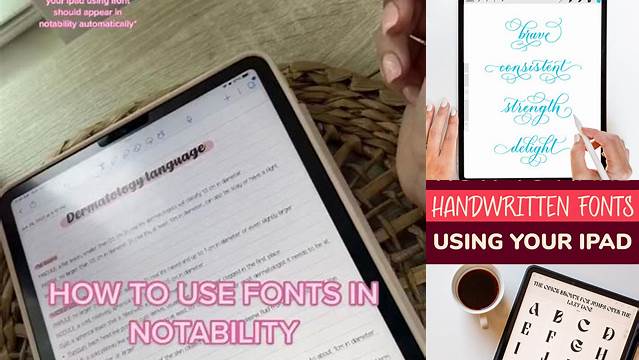
Best Fonts For IPad Notes: Enhance Your Note-Taking
Introduction: Enhancing Your Note-Taking Experience with the Right Fonts
Hey guys! Are you looking to elevate your note-taking game on your iPad? One of the most underrated aspects of digital note-taking is the font. Choosing the right font can significantly impact readability, organization, and overall aesthetic appeal of your notes. In this comprehensive guide, we’ll dive deep into the world of fonts for iPad Notes, exploring everything from built-in options to third-party apps and how they can transform your note-taking experience. Selecting the perfect font isn't just about aesthetics; it's about functionality and clarity. A well-chosen font can reduce eye strain, improve reading speed, and make your notes more engaging. Think of your notes as a reflection of your thought process – the right font can help articulate your ideas more effectively. When you're staring at a screen for extended periods, especially during lectures or study sessions, the readability of your font becomes crucial. Fonts that are too decorative or have inconsistent letter spacing can cause fatigue and hinder comprehension. That's why it's essential to consider fonts designed for readability, with clear and consistent letterforms. The built-in font options in iPad Notes offer a solid starting point, but exploring third-party apps can unlock a world of possibilities. These apps provide access to a vast library of fonts, each with its unique character and style. Whether you're aiming for a professional, minimalist look or a creative, handwritten feel, there's a font out there to match your preferences. Beyond the technical aspects, choosing a font is also a matter of personal expression. Just like handwriting, your font choice can reflect your personality and the tone of your notes. A clean, sans-serif font might be ideal for formal meeting notes, while a more playful, script-style font could be perfect for personal journaling. So, let’s embark on this font-astic journey together! We'll explore the best built-in options, delve into the realm of third-party apps, and provide tips on how to install and manage fonts on your iPad. By the end of this guide, you'll be equipped with the knowledge to choose the perfect fonts that make your iPad Notes both visually appealing and highly effective.
Exploring Built-In Font Options in iPad Notes
Let’s start with the basics, shall we? The native Notes app on your iPad comes equipped with a selection of built-in fonts that are surprisingly versatile. These fonts are designed to be readable and functional, catering to a wide range of note-taking needs. While the default options may seem limited at first glance, understanding their nuances can help you make informed choices for different types of notes. Among the most popular built-in fonts are San Francisco (the system font for Apple devices), Helvetica Neue, and Times New Roman. San Francisco is known for its clean and modern aesthetic, making it an excellent choice for general note-taking and professional documents. Its clarity and legibility at various sizes make it a reliable option for long stretches of reading and writing. Helvetica Neue is another sans-serif font that exudes simplicity and sophistication. Its geometric design and uniform strokes contribute to its readability, making it suitable for both headings and body text. If you're aiming for a polished and contemporary look, Helvetica Neue is a solid pick. For those who prefer a more traditional serif font, Times New Roman is a classic choice. Its elegant serifs and balanced proportions lend a formal touch to your notes, making it ideal for academic or professional settings. While Times New Roman might feel a bit old-school to some, its timeless appeal and readability make it a perennial favorite. In addition to these core fonts, the iPad Notes app also offers other options like Arial, Courier New, and Georgia. Arial is another sans-serif font that's similar to Helvetica but with subtle differences in its letterforms. It's a versatile choice that works well for both digital and print formats. Courier New, a monospaced font, is reminiscent of typewriters and can be useful for coding notes or when you need consistent character widths. Georgia, a serif font designed for screen readability, offers a softer and more approachable alternative to Times New Roman. To change the font in your iPad Notes, simply tap the “Aa” icon in the formatting toolbar. This will bring up a menu where you can select your desired font, size, and style (bold, italic, underline). Experimenting with these options is key to finding the perfect combination that suits your note-taking style. Remember, the best font is one that you find comfortable to read and that enhances your ability to organize and recall information. Don't be afraid to mix and match fonts for headings and body text to create visual hierarchy and highlight important points. By mastering the built-in font options in iPad Notes, you can lay a strong foundation for creating beautiful and effective notes.
Unleashing Creativity: Exploring Third-Party Font Apps
Okay, so you've got the hang of the built-in fonts, but what if you're craving something more unique? That’s where third-party font apps come into play, guys! These apps open up a whole new world of typographic possibilities, allowing you to personalize your iPad Notes like never before. Think of it as upgrading from a standard pen to a whole set of calligraphy tools – the potential for creativity is immense. One of the most popular categories of third-party font apps is font managers. These apps, such as iFont, AnyFont, and Font Diner, allow you to install custom fonts directly onto your iPad. This means you can access a vast library of fonts from various sources, including Google Fonts, Adobe Fonts, and independent foundries. Imagine having thousands of fonts at your fingertips, ready to be used in your notes! Installing fonts using these apps is generally a straightforward process. You typically download the font files (usually in .ttf or .otf format), import them into the font manager app, and then install them onto your iPad’s system settings. Once installed, the fonts become available in any app that supports custom fonts, including iPad Notes. This seamless integration makes it easy to switch between different fonts and styles as you take notes. Beyond font managers, there are also specialized apps that offer curated collections of fonts designed for specific purposes. For example, some apps focus on handwritten-style fonts, perfect for adding a personal touch to your notes. Others specialize in calligraphy fonts, ideal for creating elegant headings and titles. And then there are apps that offer unique and experimental fonts, pushing the boundaries of typography and allowing you to express your individuality. When exploring third-party font apps, it’s essential to consider the licensing terms of the fonts you download. Some fonts are free for personal use but require a commercial license for business or professional projects. Others may have specific restrictions on how they can be used. Always check the license agreement before using a font to ensure you're complying with the terms. Another factor to consider is the compatibility of the fonts with iPad Notes and other apps you use. While most standard font formats are supported, some apps may have limitations or quirks. It’s always a good idea to test the fonts in different apps to ensure they render correctly and look as intended. Using third-party font apps can be a game-changer for your iPad note-taking. You can add personality, improve readability, and create a visual style that's uniquely yours. So, go ahead and unleash your creativity – the world of fonts is waiting to be explored!
Tips for Choosing the Best Fonts for Different Note-Taking Scenarios
Choosing the right font isn't just about aesthetics; it's about functionality. Different fonts are better suited for different note-taking scenarios. Whether you're jotting down quick ideas, taking detailed lecture notes, or creating professional reports, the font you choose can impact readability, organization, and overall effectiveness. Let's dive into some tips for selecting the best fonts for various situations. For general note-taking, a clean and legible sans-serif font is often the best choice. Fonts like San Francisco, Helvetica Neue, and Arial are excellent options. These fonts are designed for readability at various sizes, making them ideal for long stretches of writing and reading. They also have a modern and minimalist aesthetic that works well in digital environments. When taking lecture notes, speed and clarity are paramount. You need a font that you can quickly scan and easily distinguish between different characters. A monospaced font like Courier New can be helpful in this scenario, as it ensures that each character occupies the same width, making it easier to align text and create visual structure. However, monospaced fonts can sometimes feel a bit clunky, so it's essential to balance functionality with readability. For creative note-taking or journaling, you might want to explore more expressive fonts. Handwritten-style fonts can add a personal touch to your notes and make them feel more authentic. Script fonts can be beautiful for headings and titles, but be careful not to overuse them, as they can be difficult to read in large blocks of text. When creating professional documents or reports, a classic serif font like Times New Roman or Georgia can lend a formal and polished look. These fonts have a timeless appeal and are widely recognized and respected in academic and professional settings. However, it's crucial to use serif fonts sparingly and ensure that the body text remains highly readable. In presentations and visual aids, consider using larger font sizes and bold styles to make your text stand out. A clear and impactful sans-serif font is often the best choice for headings and bullet points. Avoid overly decorative fonts that can distract from your message. When collaborating with others, choose fonts that are widely available and easily accessible. This will ensure that everyone can view your notes correctly, regardless of their device or software. Google Fonts is an excellent resource for free and open-source fonts that are compatible across platforms. Experimenting with different font combinations can help you create visual hierarchy and highlight important information. Try using a bold sans-serif font for headings and a legible serif font for body text. You can also use different font sizes and styles (italic, underline) to emphasize key points. Ultimately, the best font for a particular note-taking scenario depends on your personal preferences and the specific requirements of the task at hand. Don't be afraid to try out different fonts and find what works best for you. Remember, the goal is to create notes that are both visually appealing and highly effective. By following these tips, you can choose the perfect fonts to enhance your note-taking experience.
Conclusion: Elevate Your Notes with the Perfect Font
So there you have it, folks! We've journeyed through the world of fonts for iPad Notes, from the reliable built-in options to the limitless creativity of third-party apps. We've covered installation, management, and even tips for choosing the perfect font for different scenarios. Hopefully, you’re feeling equipped to transform your note-taking experience. Choosing the right font is more than just an aesthetic decision – it’s about enhancing readability, organization, and personal expression. A well-chosen font can reduce eye strain, improve comprehension, and make your notes more engaging. It can also reflect your personality and the tone of your message. By mastering the art of font selection, you can elevate your notes from simple scribbles to polished and effective documents. Remember, the built-in fonts in iPad Notes offer a solid foundation. San Francisco, Helvetica Neue, and Times New Roman are all excellent choices for general note-taking, lectures, and professional reports. However, don’t be afraid to venture beyond the defaults and explore the vast world of third-party fonts. Apps like iFont, AnyFont, and Font Diner unlock access to thousands of custom fonts, allowing you to personalize your notes like never before. When installing and managing fonts, be sure to follow the proper procedures and keep your font library organized. Regularly review your installed fonts and remove any that you no longer use. This will help prevent performance issues and ensure that your font list remains manageable. Consider the specific note-taking scenario when choosing a font. For quick notes, a clean and legible sans-serif font is often the best choice. For creative journaling, handwritten-style fonts can add a personal touch. For professional documents, a classic serif font can lend a formal look. Experiment with different font combinations to create visual hierarchy and highlight important information. Use bold styles, larger font sizes, and different font families to emphasize key points and guide the reader's eye. Most importantly, have fun with it! Font selection is a personal process, and there’s no one-size-fits-all solution. Explore different options, find what you love, and let your creativity shine through. With the right fonts, your iPad Notes can become a powerful tool for learning, organizing, and expressing your ideas. So go ahead, give your notes a font-tastic makeover!